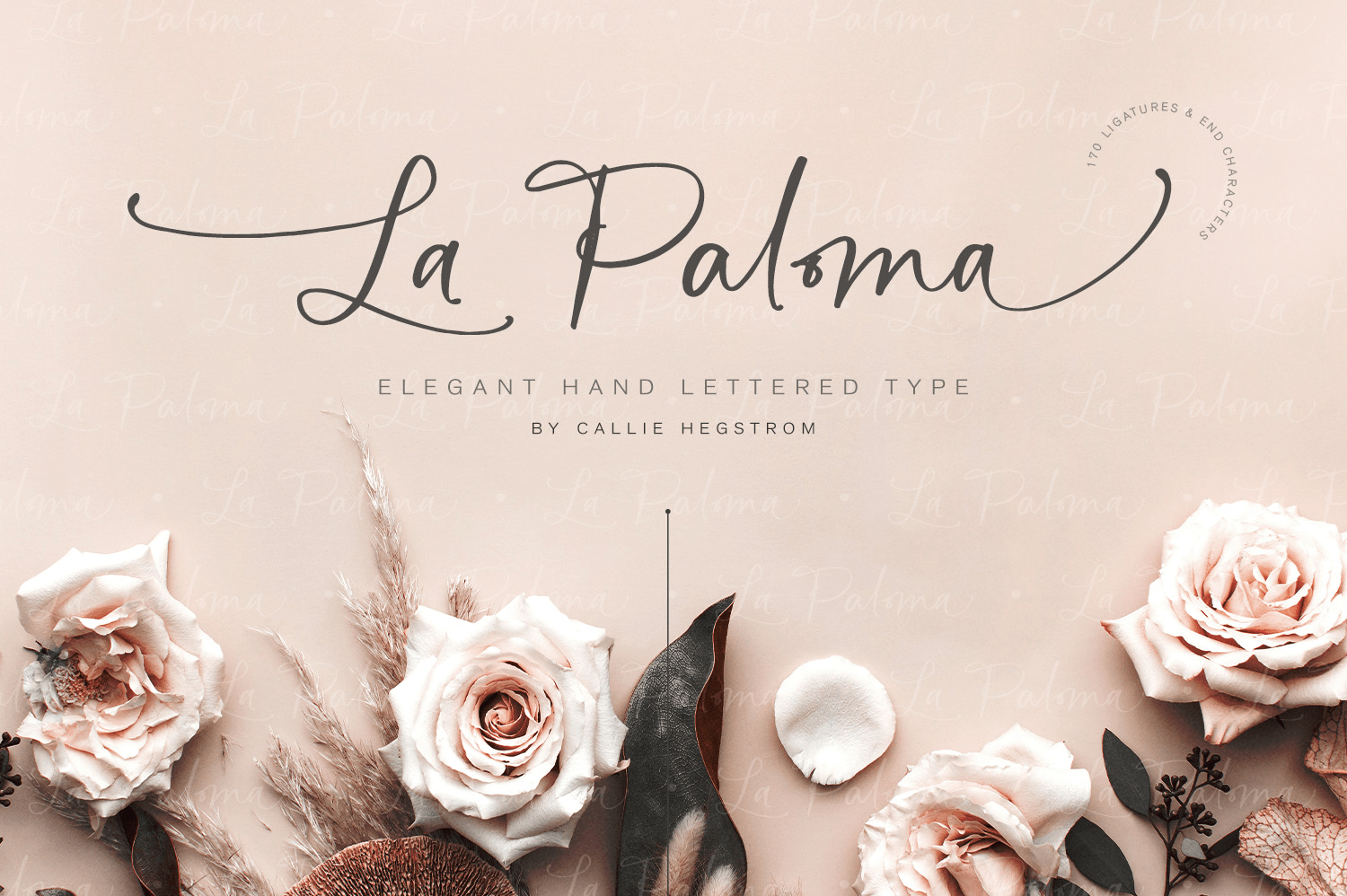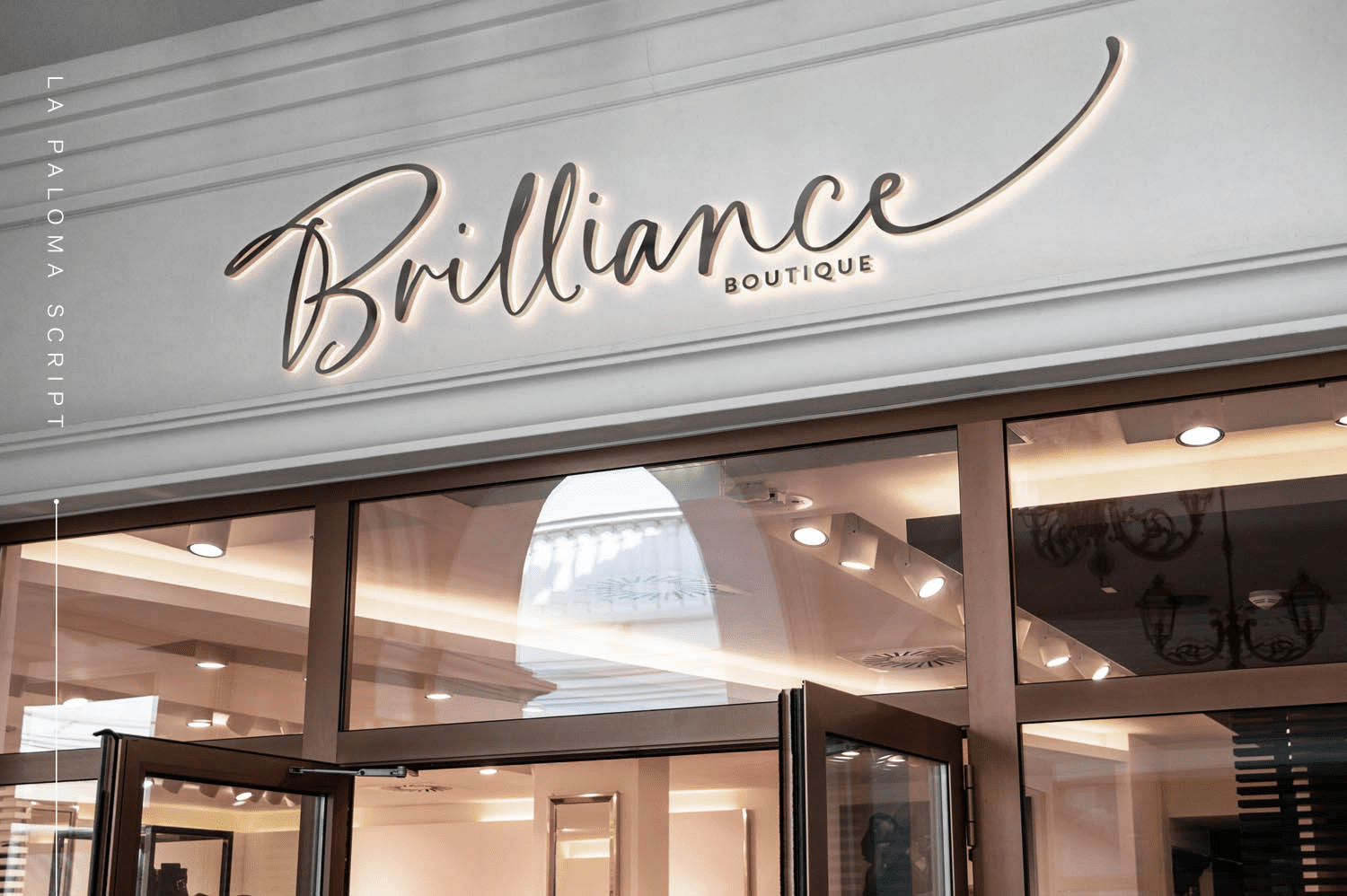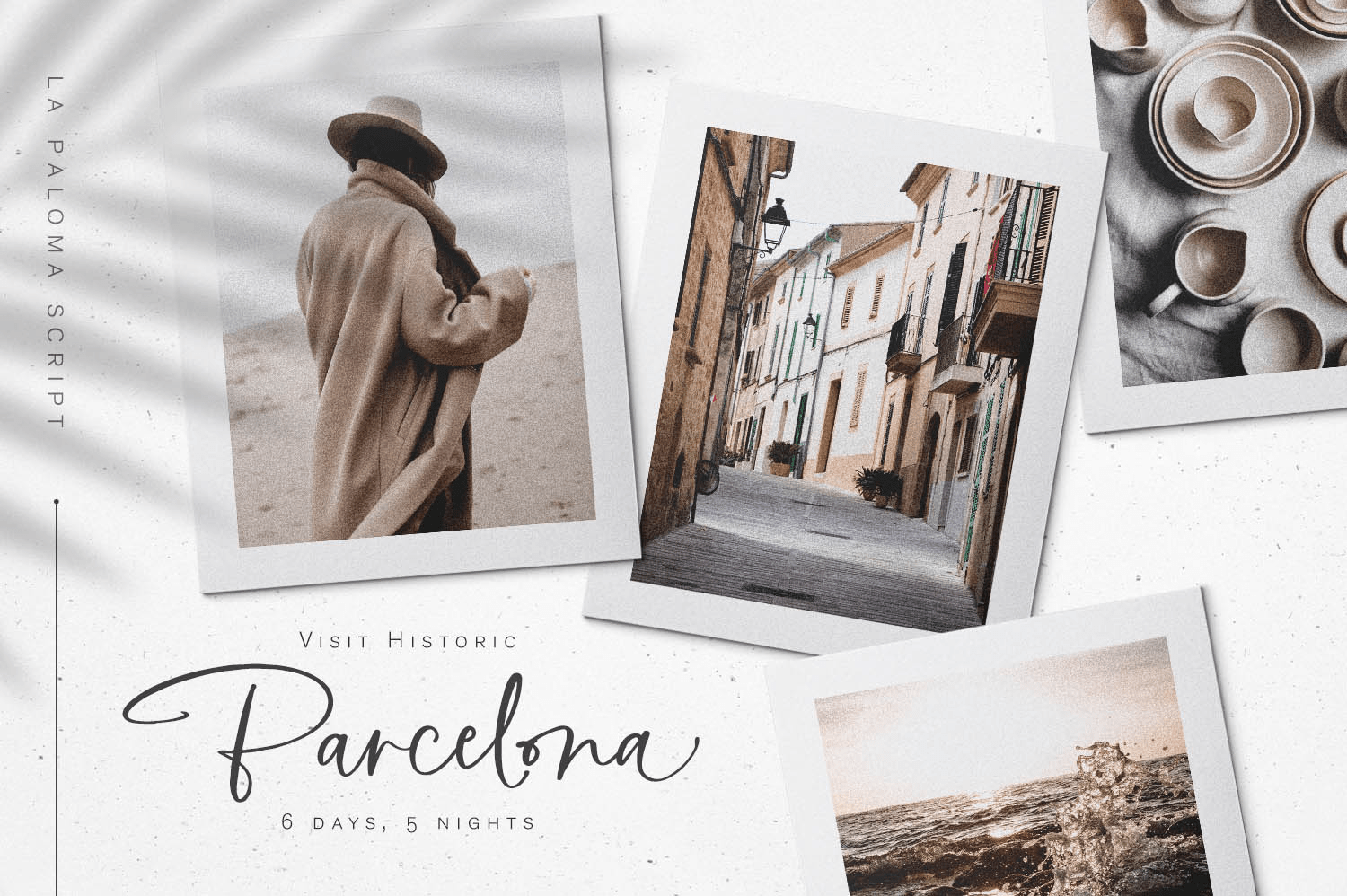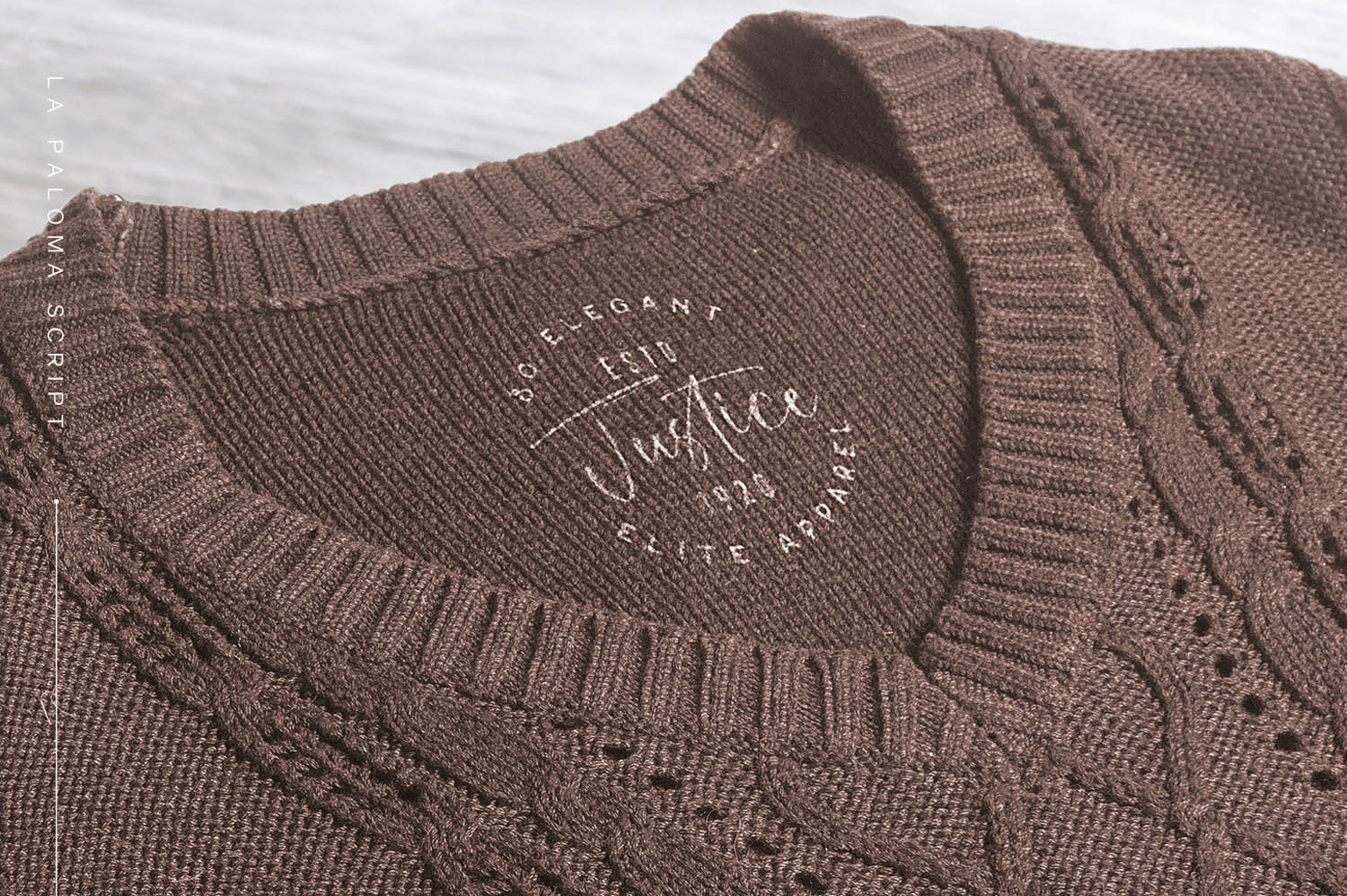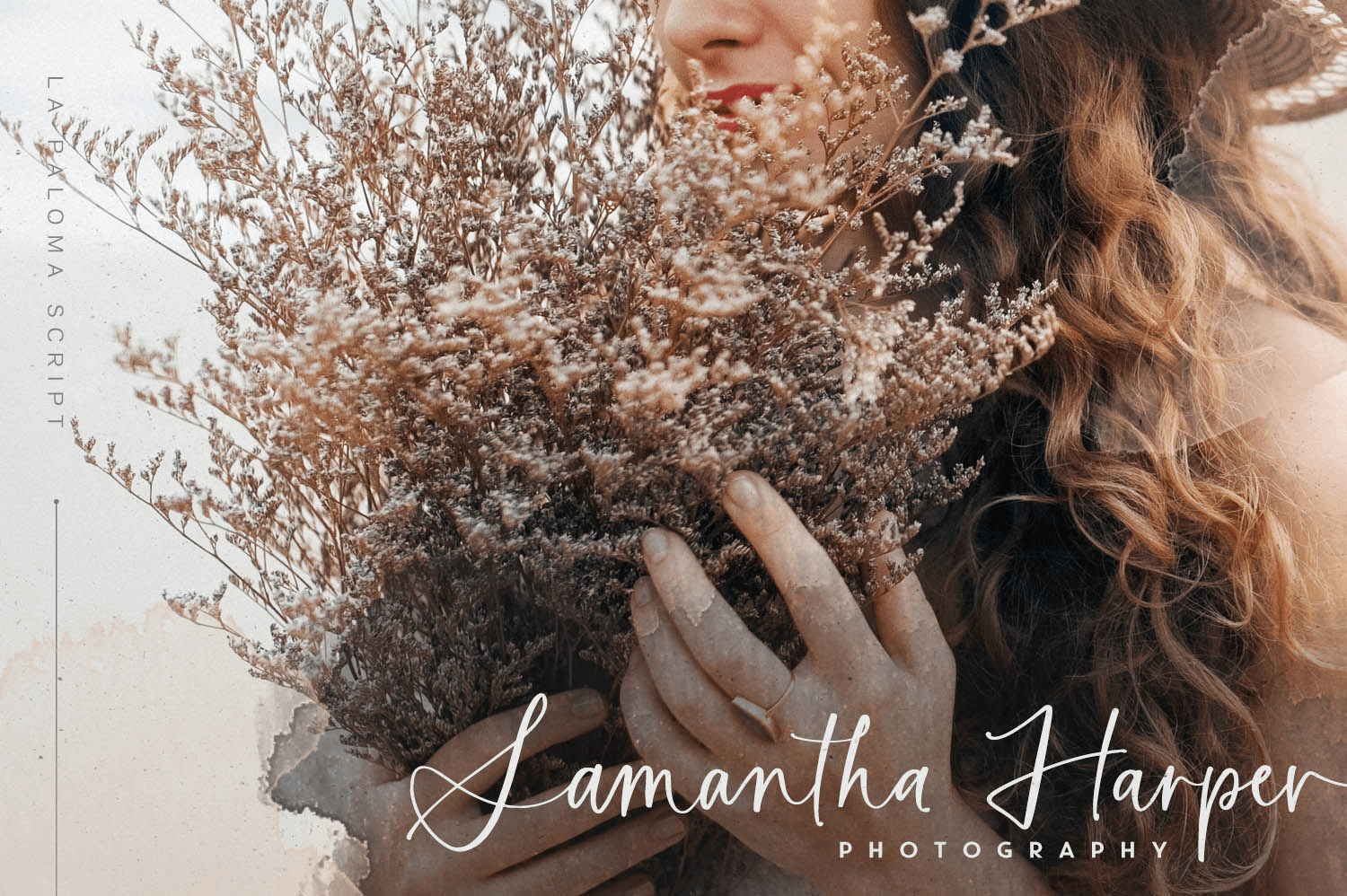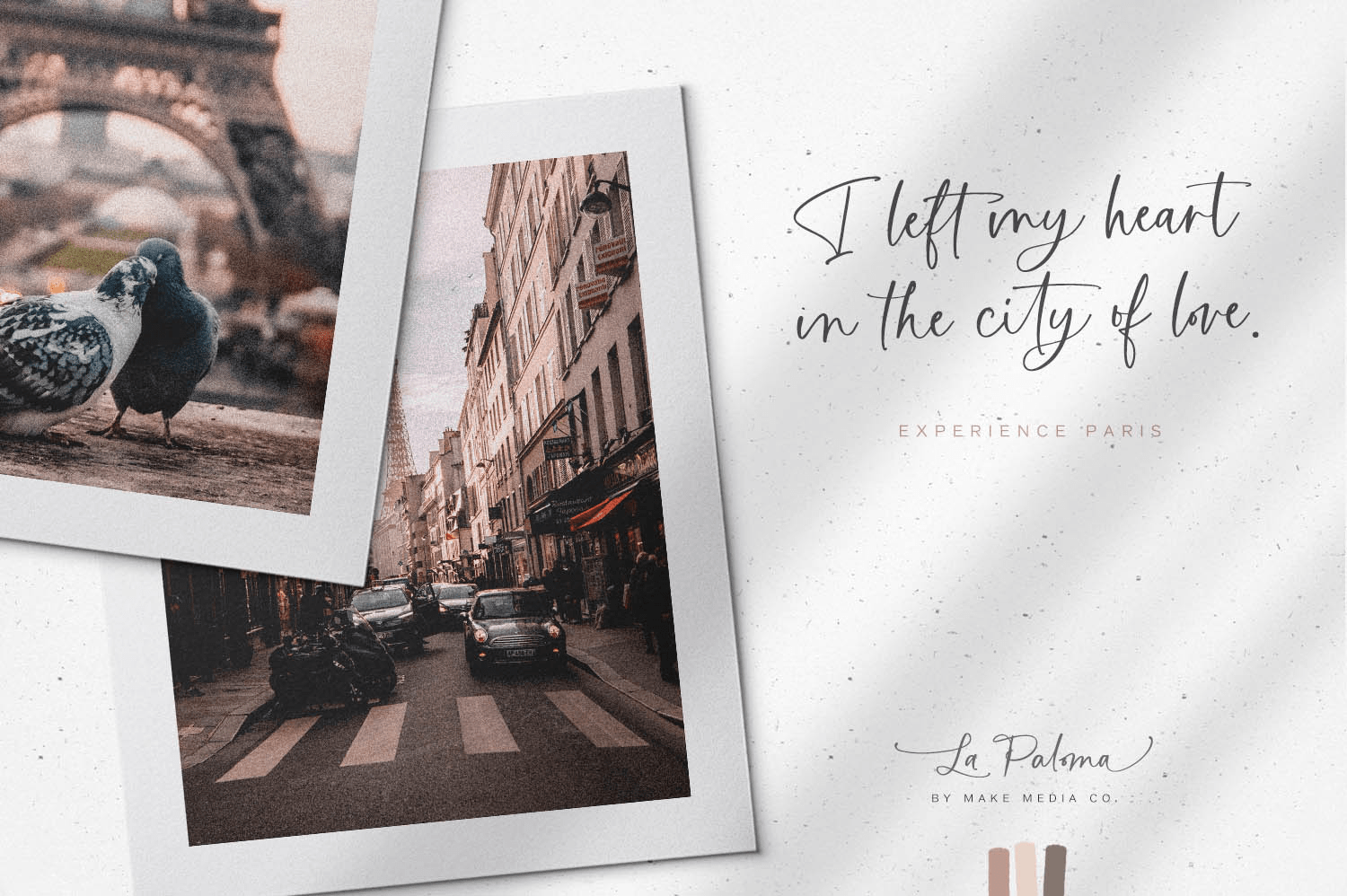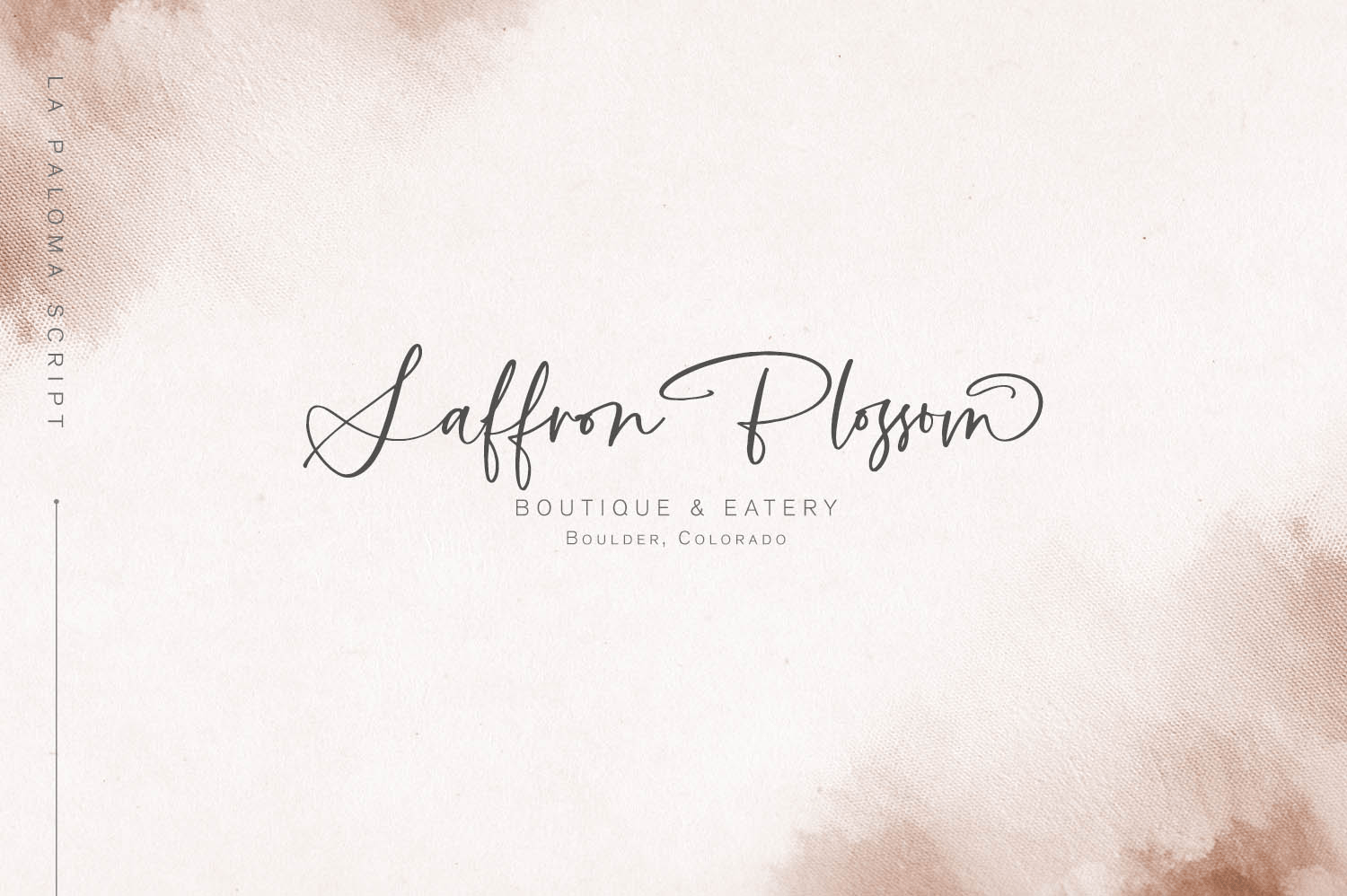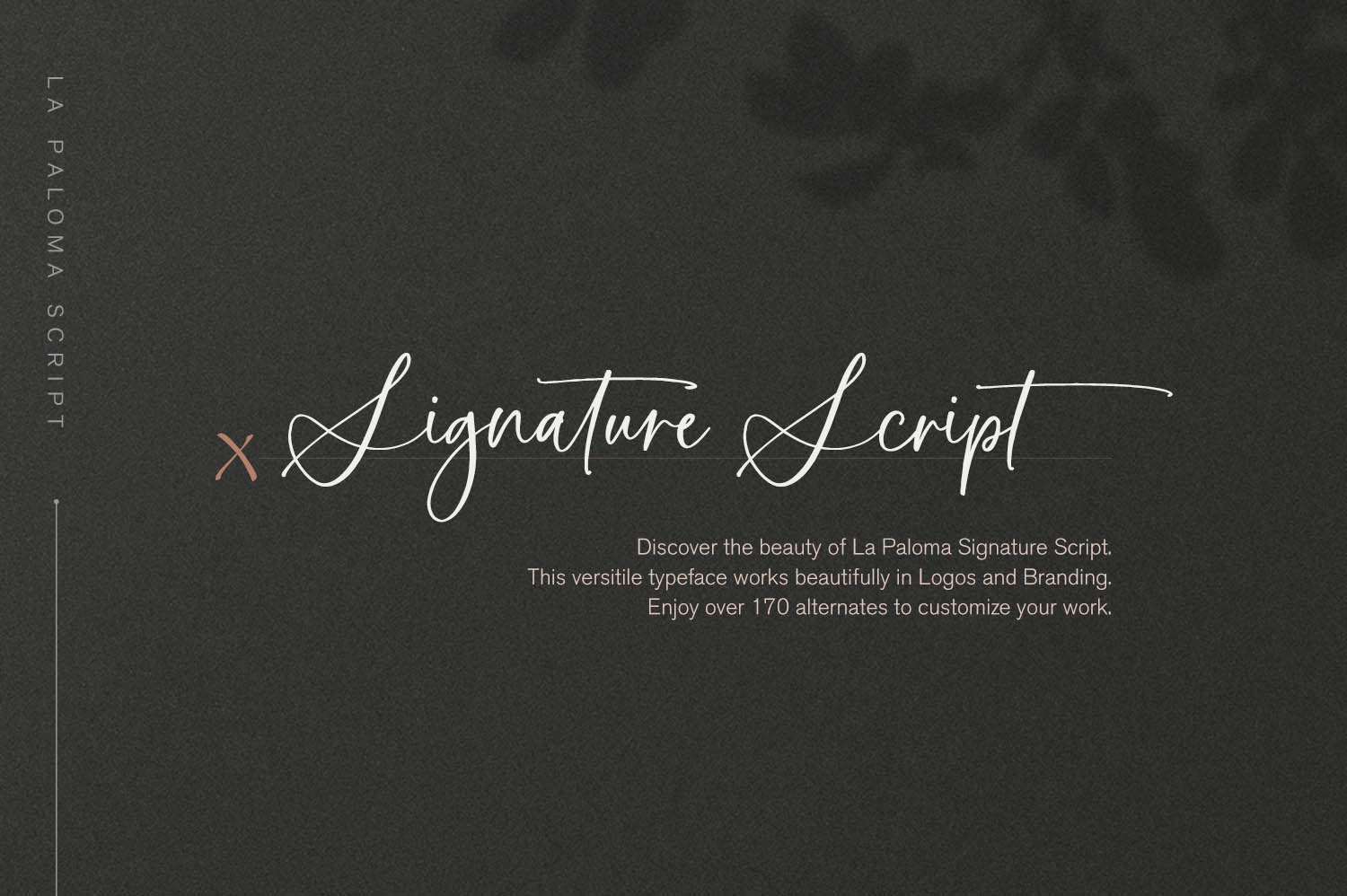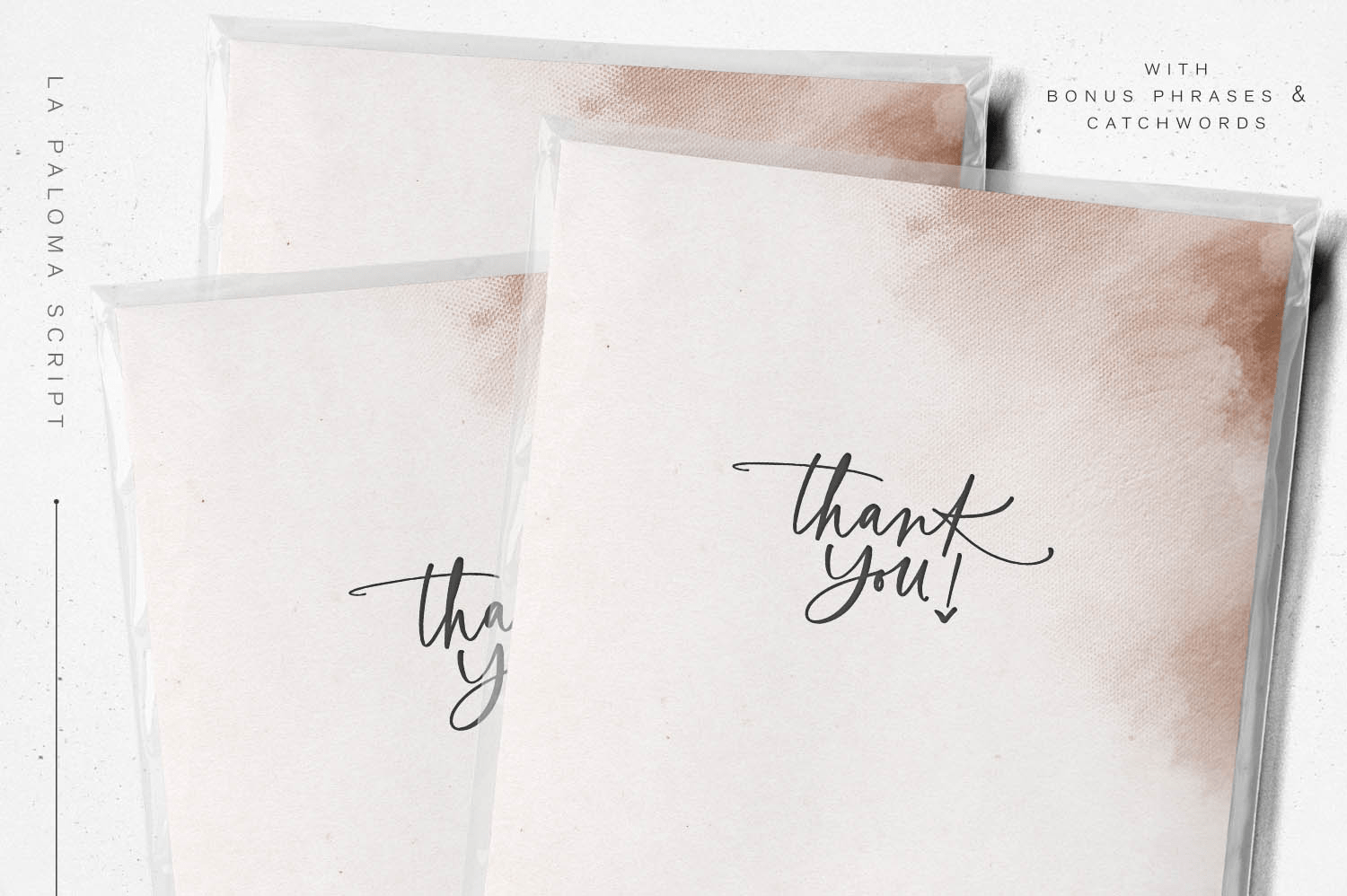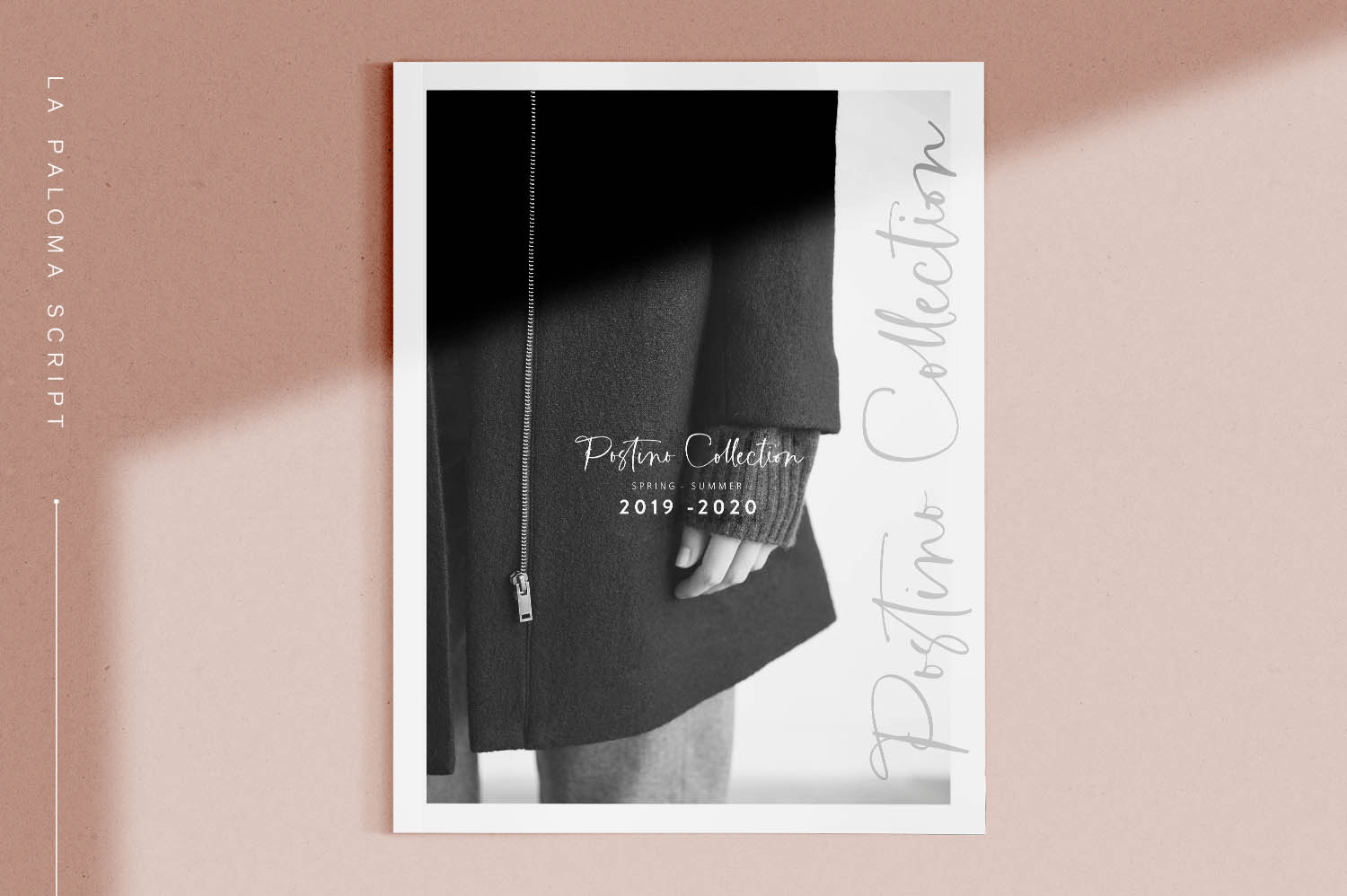
La Paloma
Font Family by Callie Rian & Co
Add a touch of elegance to your work with La Paloma Script - A clean, modern, hand-written typeface with over 170 Ligatures and Decorative End Characters to add a dash of luxury to any project.
If you're looking for the perfect logo font, you just found it! La Paloma was designed with Branding in mind! But don't stop there, use this chic type in headlines & titles, signage, greeting cards & invitations.
• La Paloma Script - An elegant typeface with over 190 alternates and extras.
• La Paloma Slanted - An italic version of La Paloma Script.
• La Paloma Extras - 79 Catchwords, Phrases & Florals.